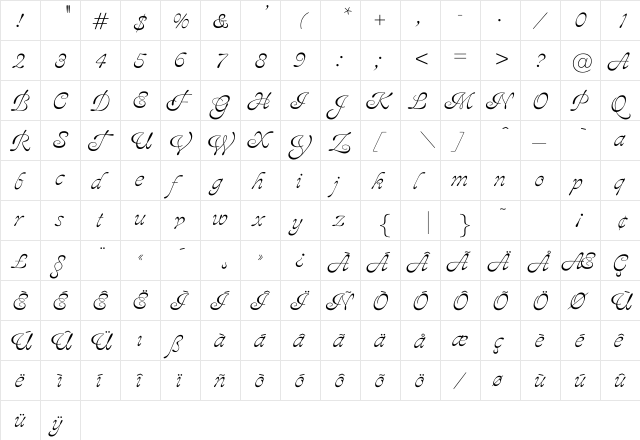
TrSah Ajile Regular
Design Context for TrSah Ajile Typeface
TrSah Ajile takes a measured approach to typography — its balanced proportions and neutral character make it a reliable workhorse for both digital and print work.